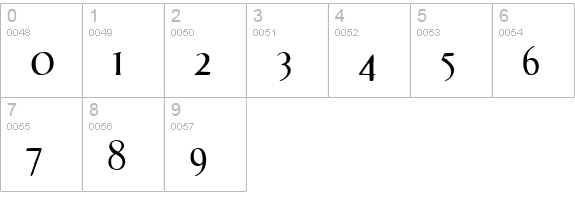
Effloresce Antique font is an exquisite and timeless typeface that effortlessly combines elegance and vintage charm. With its delicate serifs and ornate details, this font captures the essence of bygone eras, evoking a sense of nostalgia and sophistication. Effloresce Antique is perfect for adding a touch of old-world glamour to your designs. Whether you're working on wedding invitations, branding materials, or any project that requires a touch of elegance, this font will elevate your work to new heights. What makes Effloresce Antique even more appealing is that it is available for free! That's right, you can freely download this beautiful font at FontsMarket.com. Now, you can access this exceptional typeface without breaking the bank. So, don't miss out on the opportunity to add a touch of timeless beauty to your designs with Effloresce Antique font. Download it today at FontsMarket.com and let your creativity flourish!